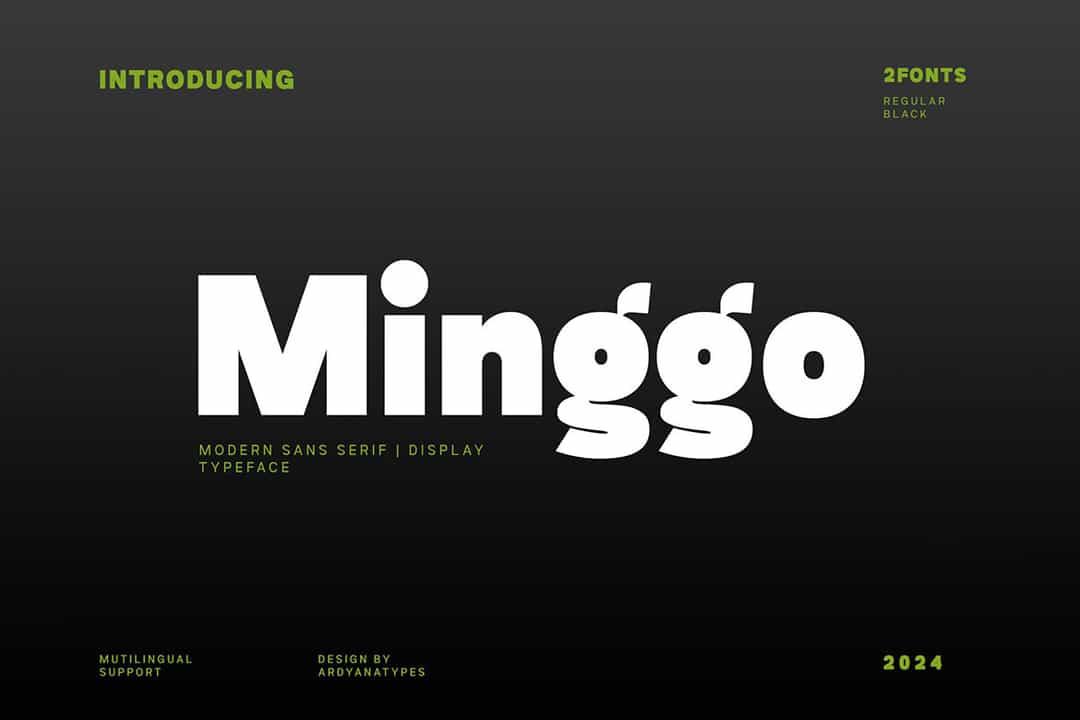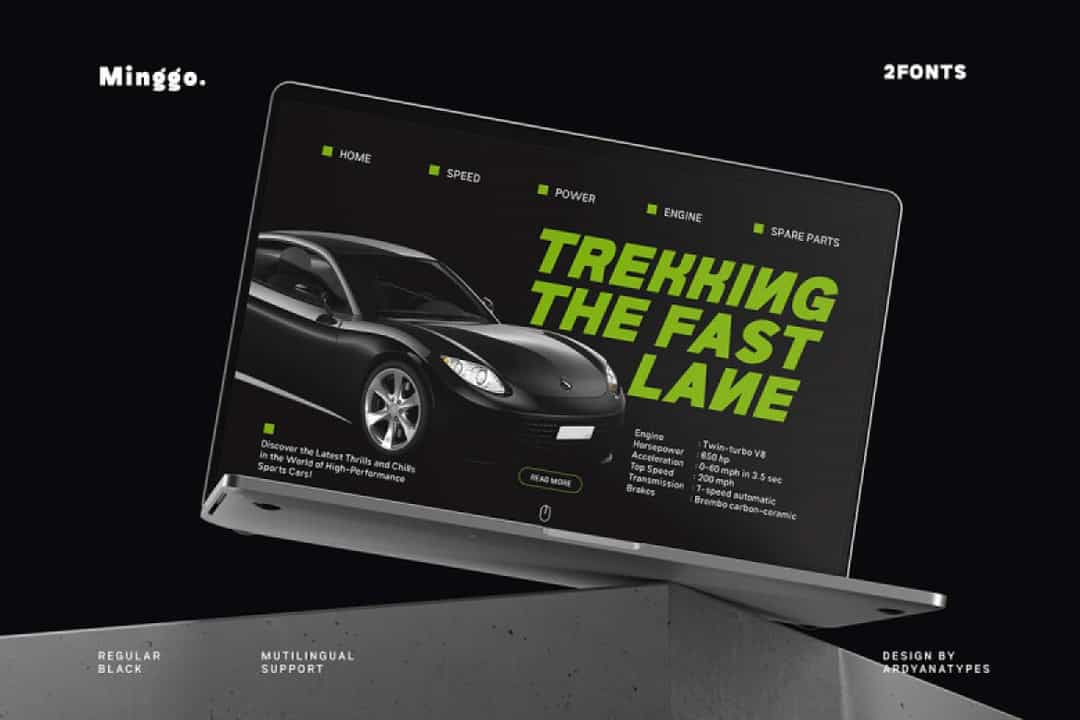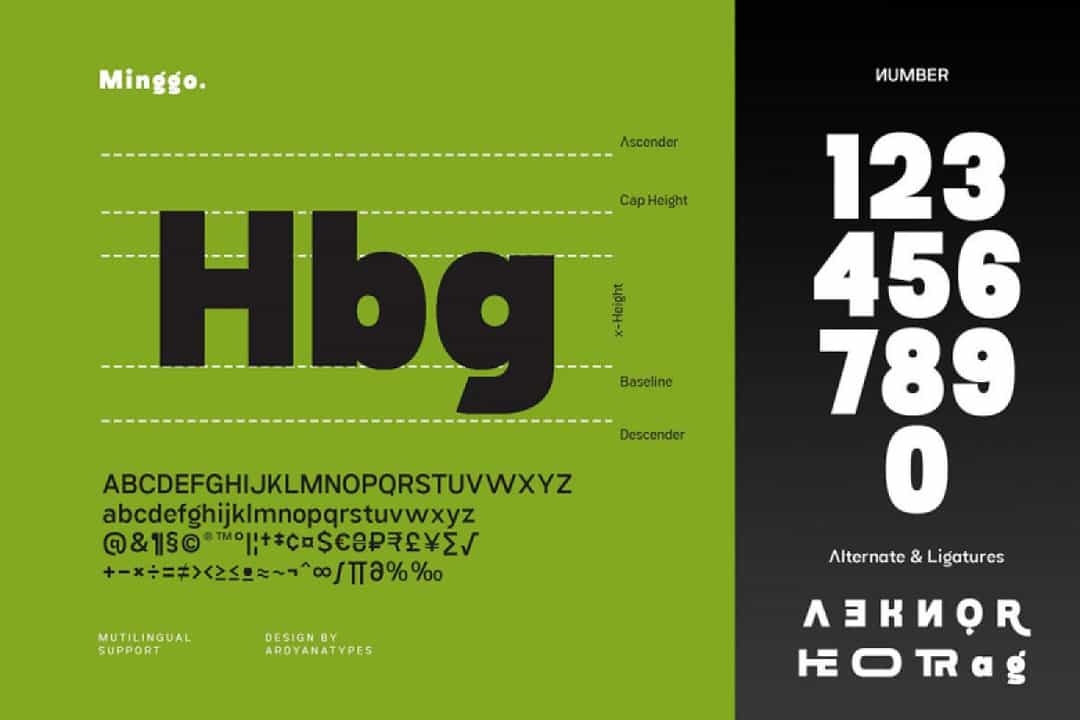
Minggo is a sans-serif font typeface that has been crafted with much attention to offer the best in branding and design. It was created with much attention being paid to details. The Minggo font has a variety of OpenType features and offers support for many languages. These features enable the users to explore more creativity in any design work that they would wish to apply the Minggo font in.